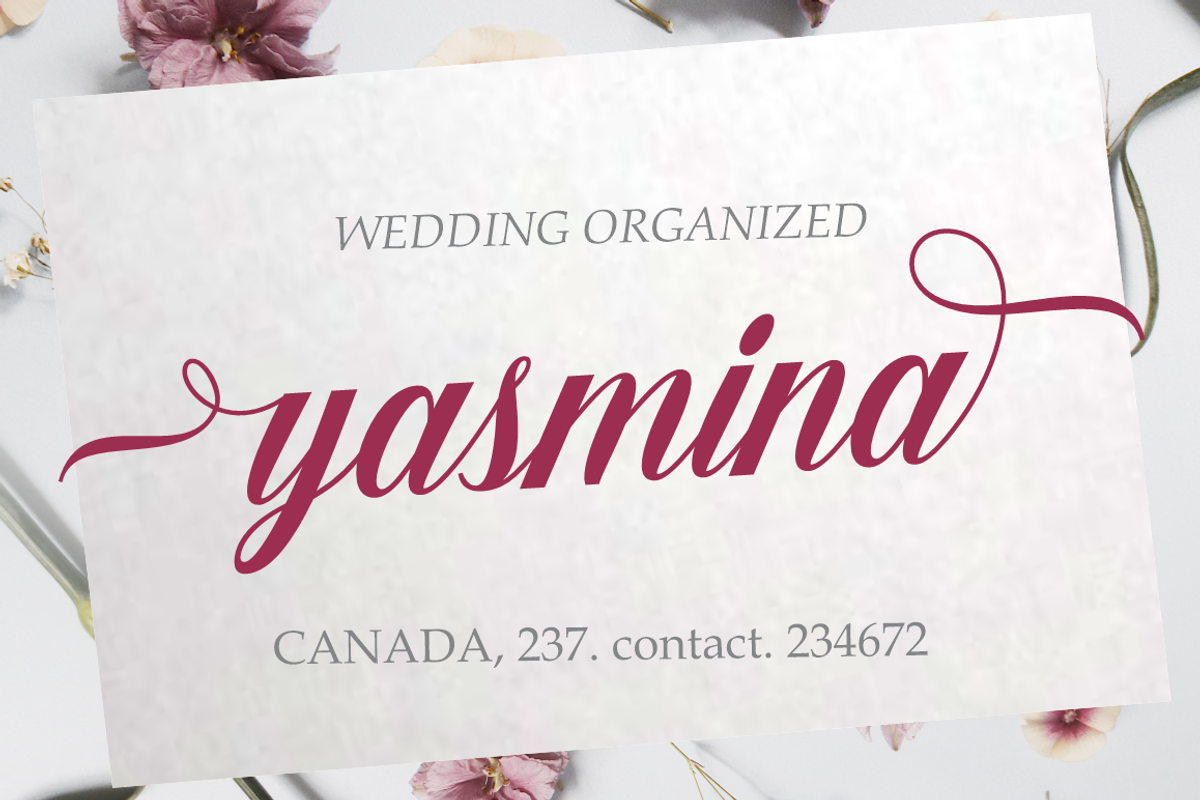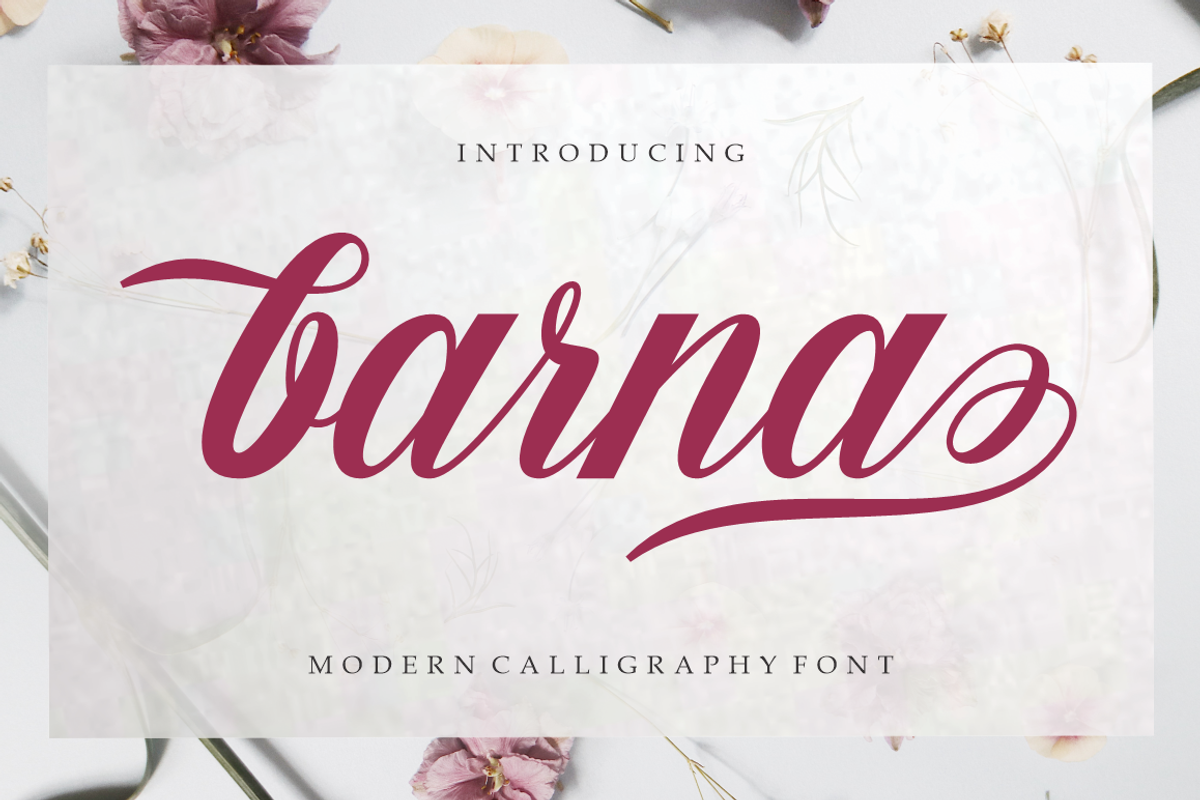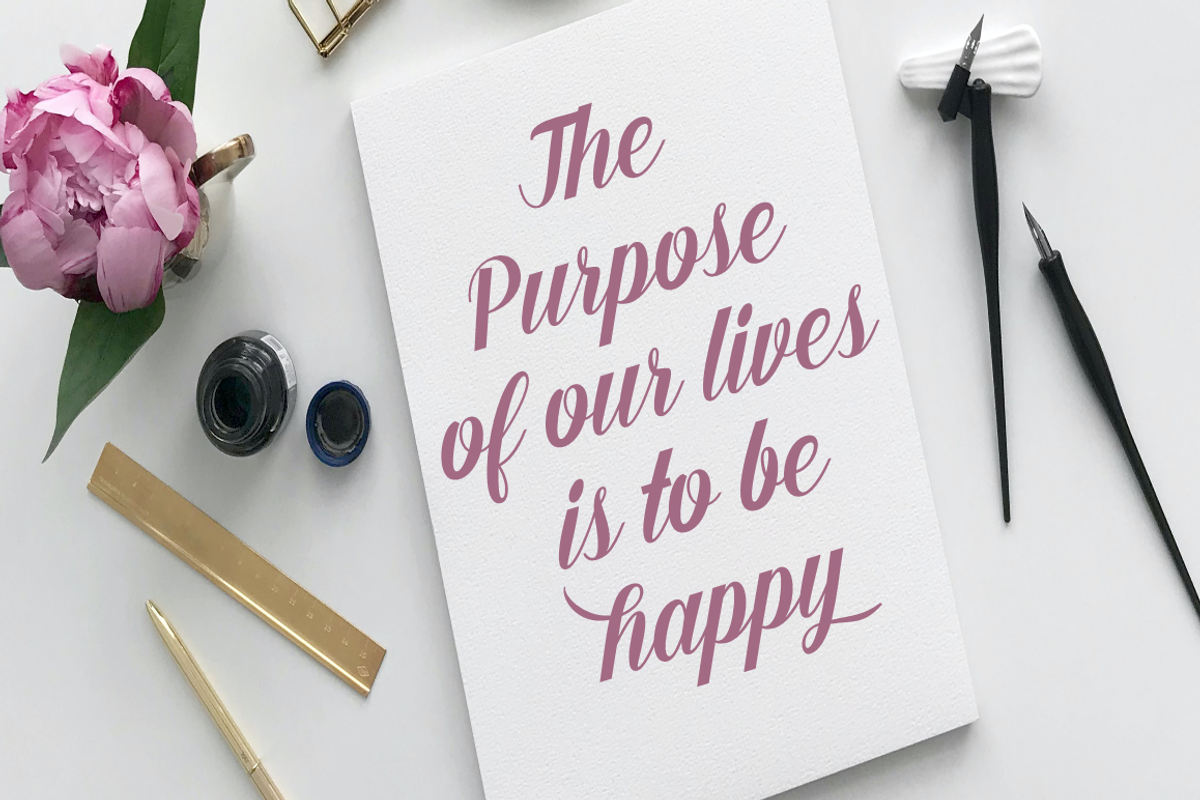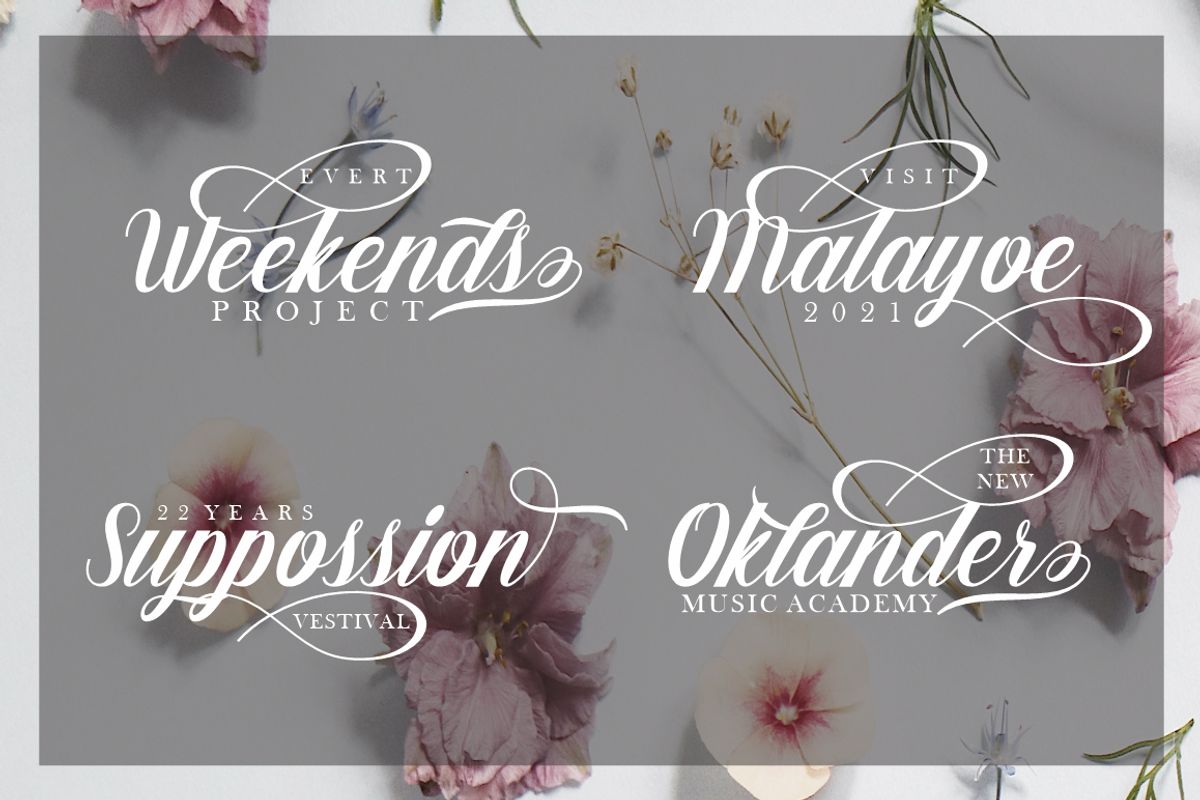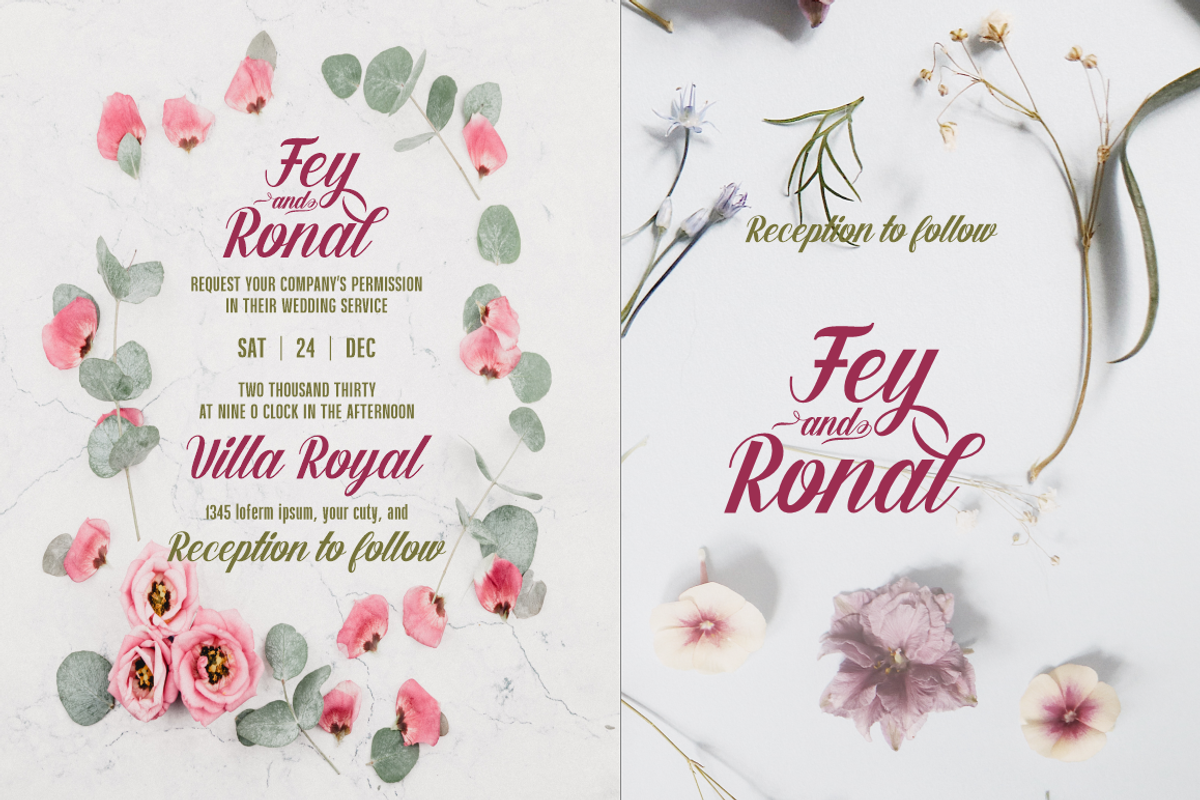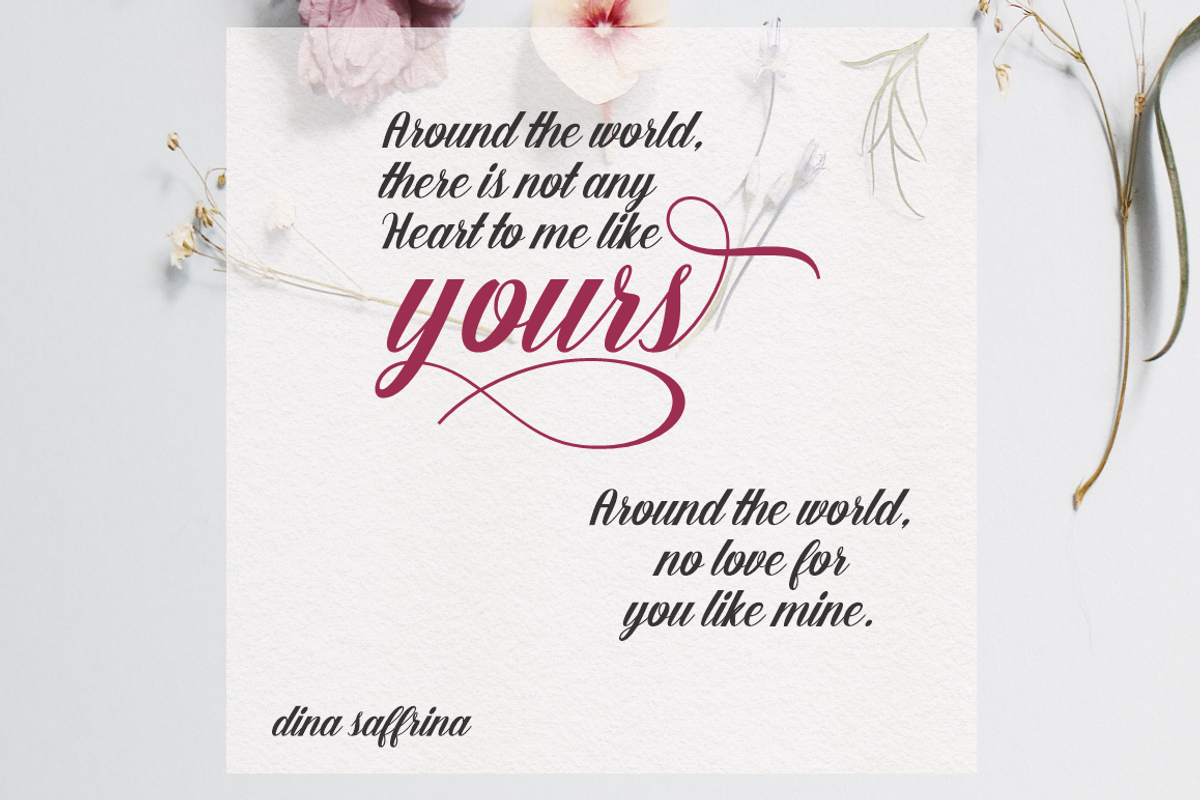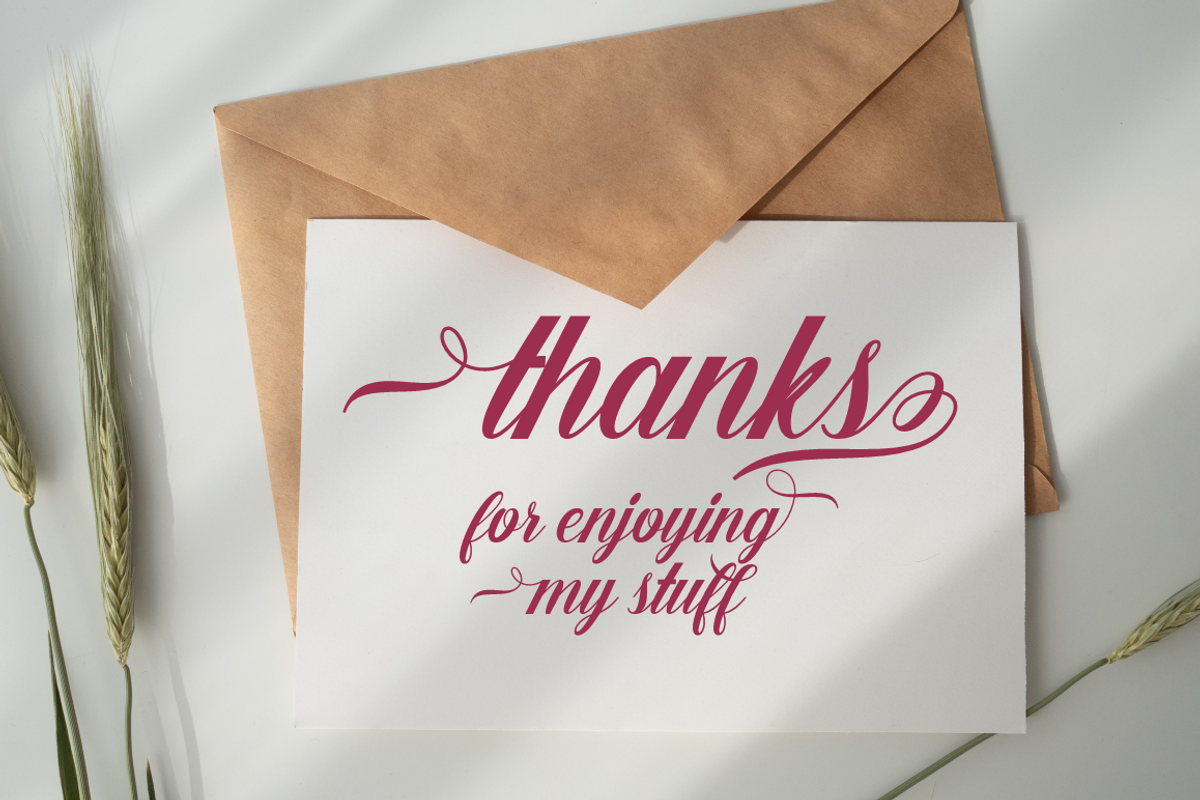
Barna
Barna is a modern calligraphy font. This font is made for those of you who need a touch of elegance and a reflection of modern style in their designs. You can use Barna for various purposes such as logos, brochures, business cards, wedding invitations, packaging, letterhead, labels, news, posters, and more.
Barna is built with OpenType features and includes initial and final swash, alternative swash characters for most lowercase letters, numbers, punctuation, alternatives, ligatures and also supports some western languages.